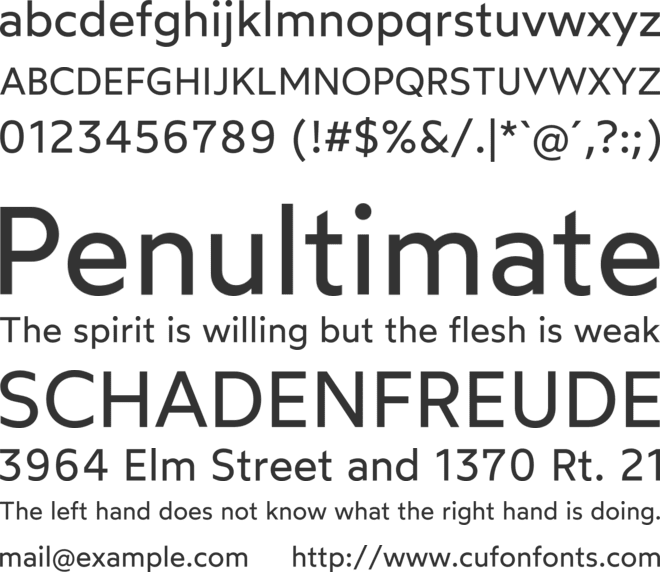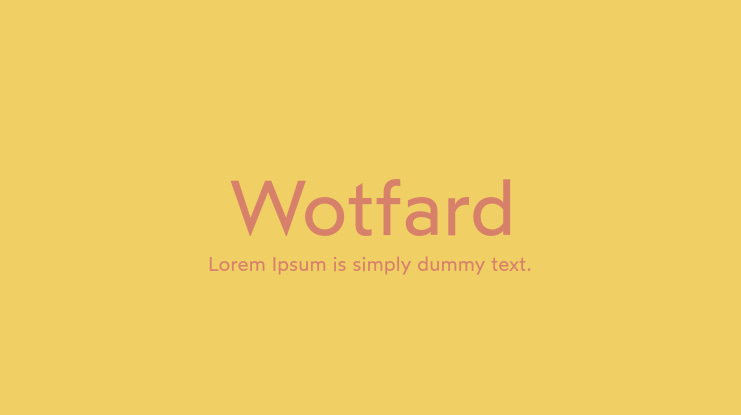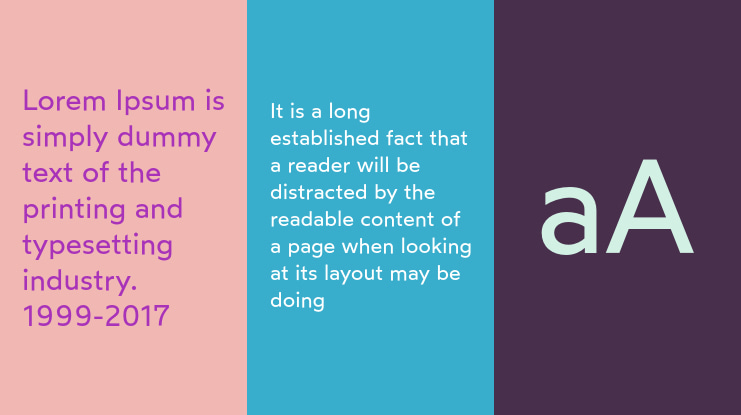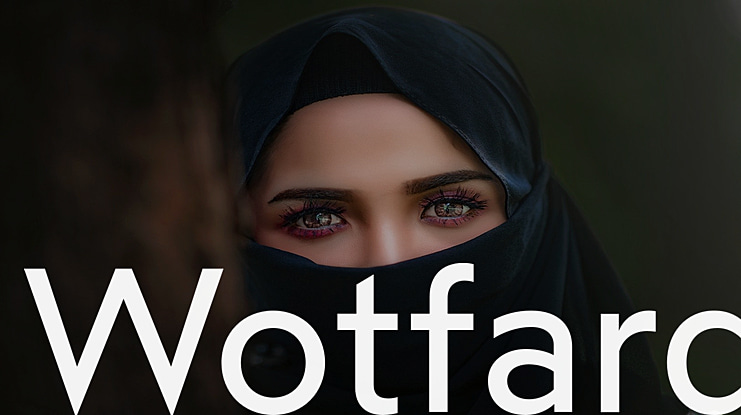
Wotfard Font
This is a brand new elegant typeface with a powerful font family. By it’s design, it takes inspiration from Geometrical and Humanist typefaces, but also contain contemporary characteristics that joined together results clean, functional, unique sans serif family.
Wotfard is modern, legible and universal font family and very suitable for many graphic design projects such as branding, logo creation, signage, editorial creation, advertising or packaging.
The whole family consists of 14 weights from Thin to Bold and their matching Italics. While the Thin and the Bold weights are great performers in display sizes the other weights are well suited to longer texts.